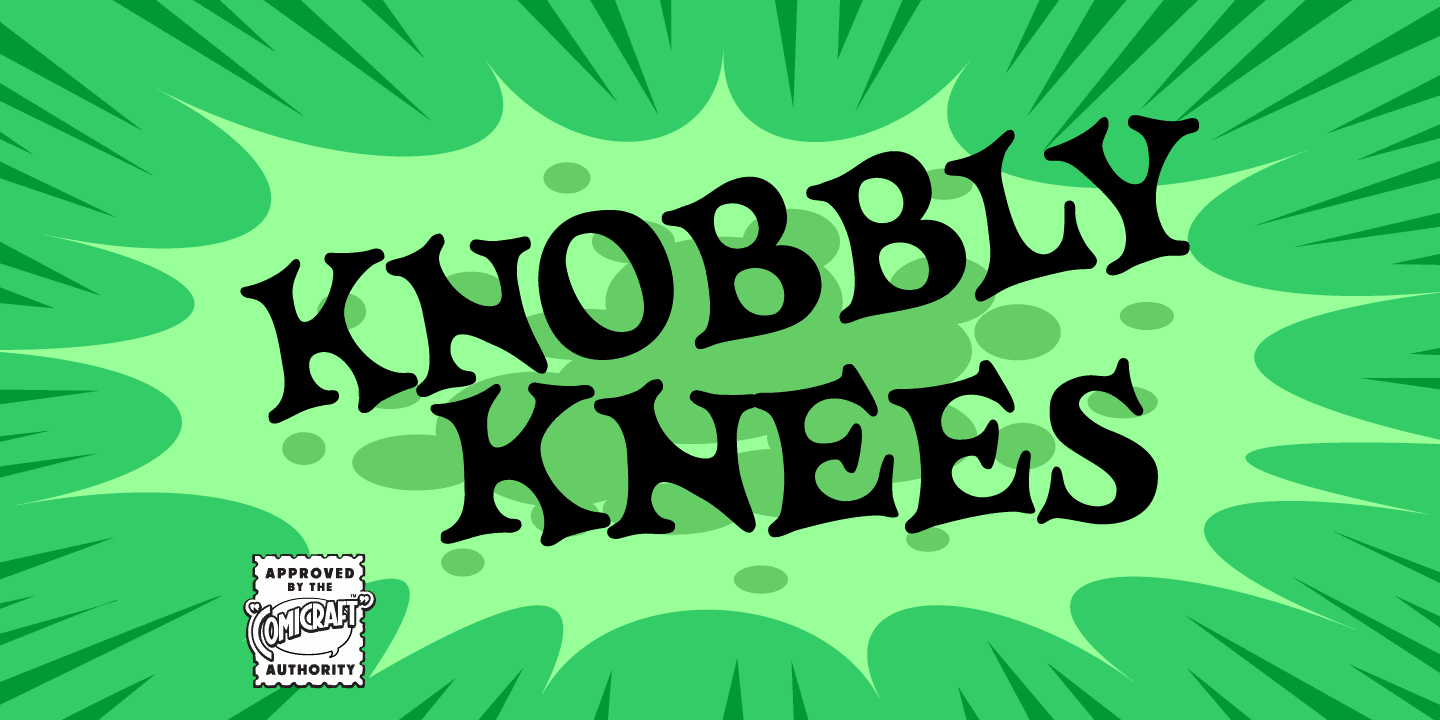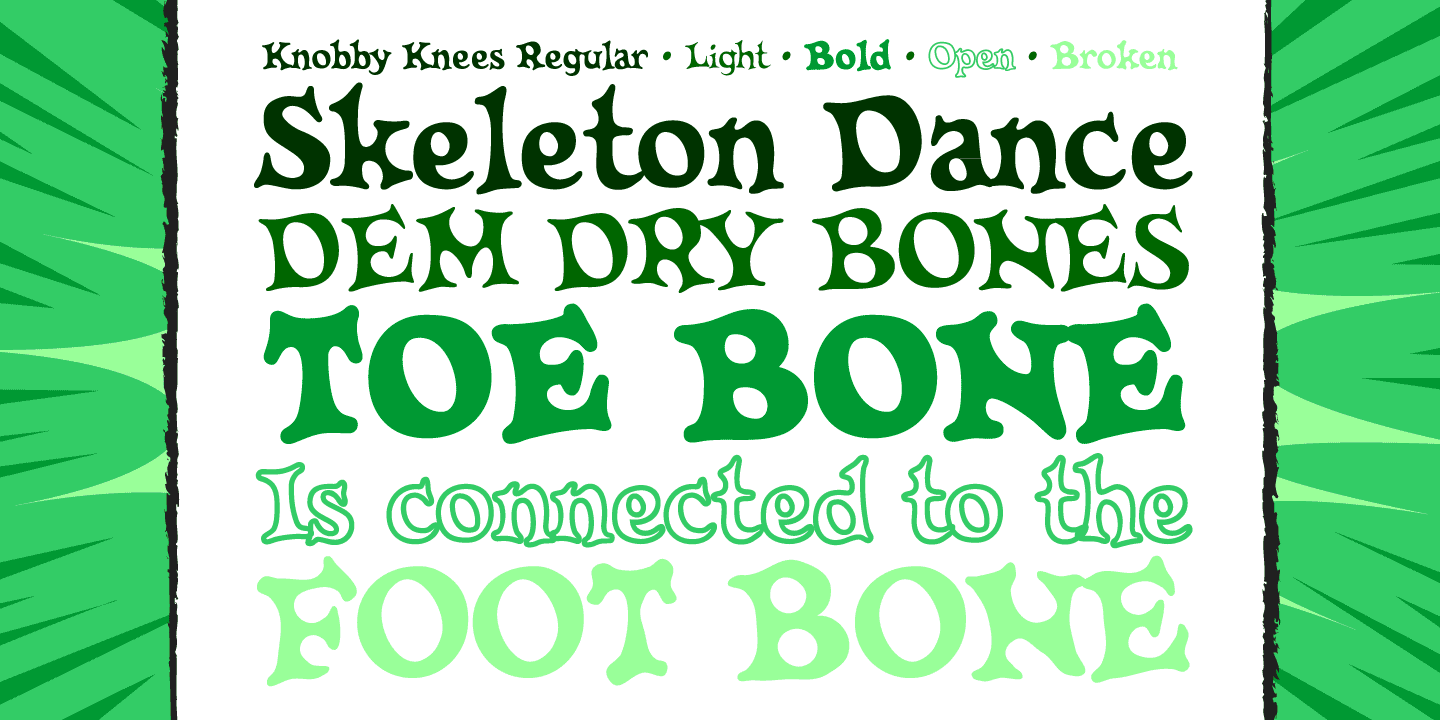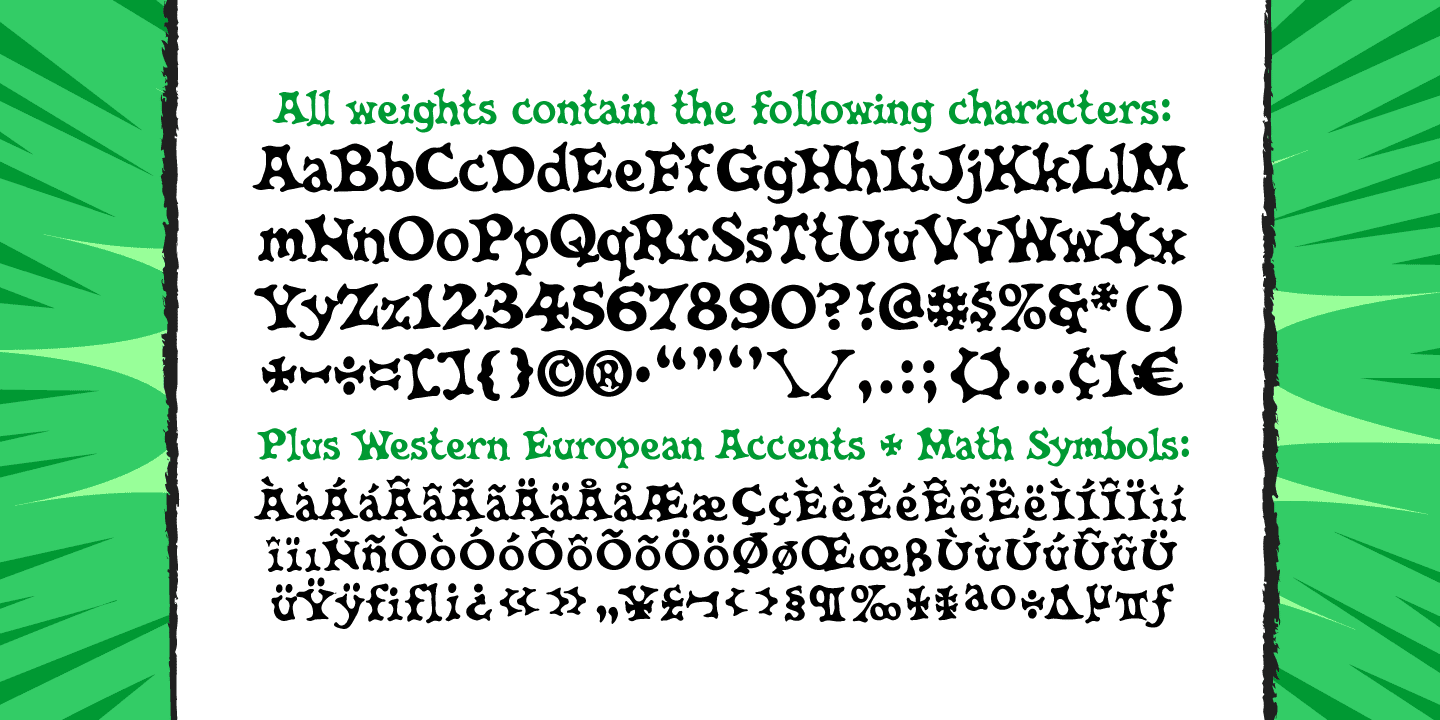
Knobbly Knees
Comicraft's latest joint has us swollen with pride! This one caps 'em all! Yes, it may look a little bony and stick out at right angles to our shins, but we reckon we'll win the a whole bunch of contests with this one... if we get up off our haunches and hobble up on stage. Trust your knee jerk reaction and download KnobblyKnees now, they look good on Kate and Angelina, they'll look good on you too!